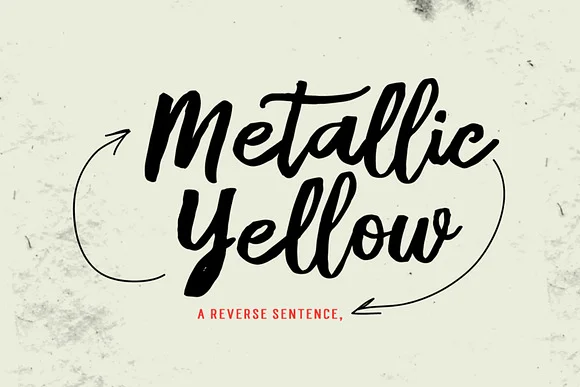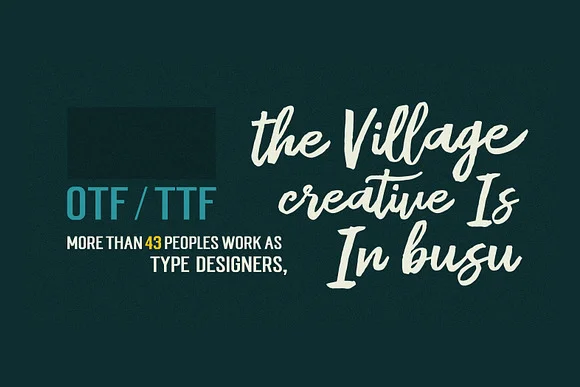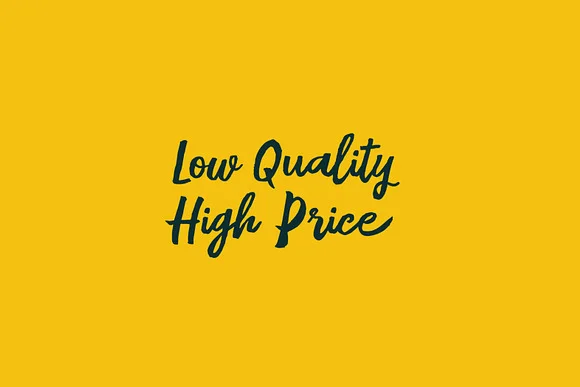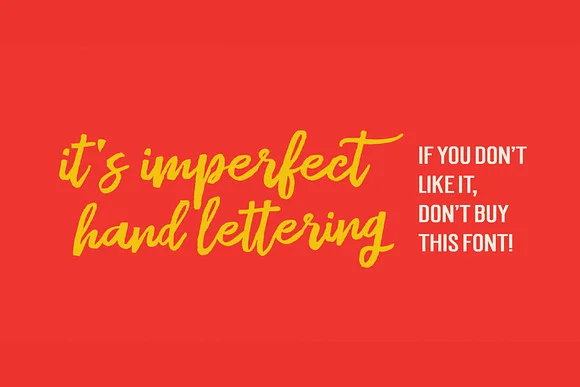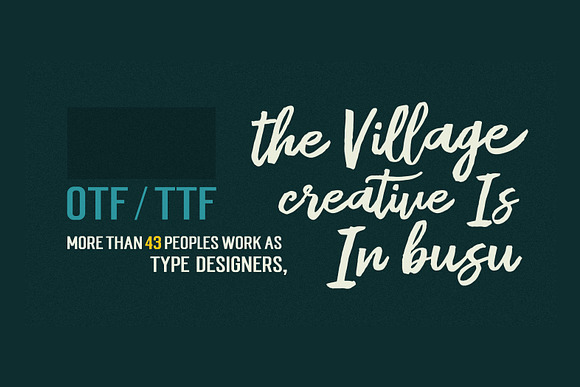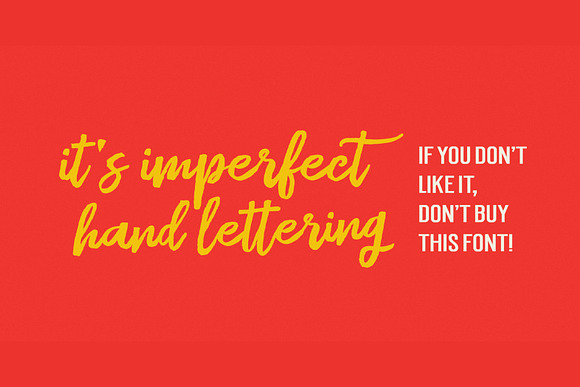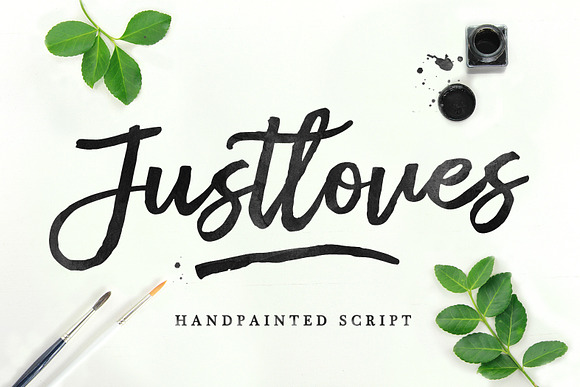
Justloves Font
When a design brief calls for both optical balance across all weights and immediate visual impact, type choices matter — Justloves answers that brief. The typeface brings an elegant, calligraphic sensibility to a broad range of creative disciplines, with refined proportions and careful stroke modulation that holds up whether the work is print-first or screen-first.
In practice, Justloves proves particularly effective for feminine branding, product labels, high-end cosmetic packaging, brand identity systems, event signage. Designers reaching for it find that the type decisions feel resolved rather than laboured — a useful quality when client timelines are tight.
The range of applications extends to social media graphics, signage systems, web design, beauty packaging. That breadth is deliberate: the proportions and spacing were stress-tested across a wide range of mock briefs before the typeface was finalised.
At smaller sizes the design retains its character without becoming cluttered. This resilience across scales makes Justloves equally suitable for a business card and a billboard — a useful property when assets must scale across a campaign.
Brand strategists building visual languages find Justloves a reliable choice for projects that demand both personality and restraint. The design avoids the self-conscious quirkiness that dates quickly, settling instead for considered distinctiveness that holds up over time.